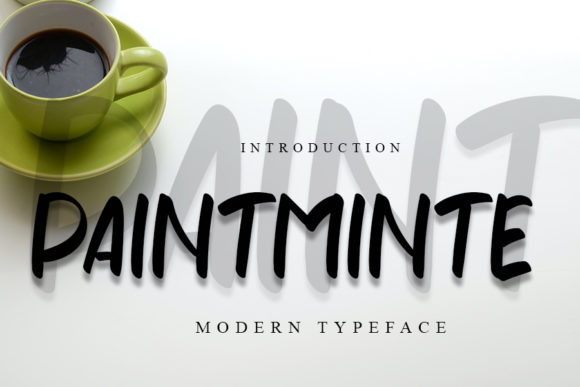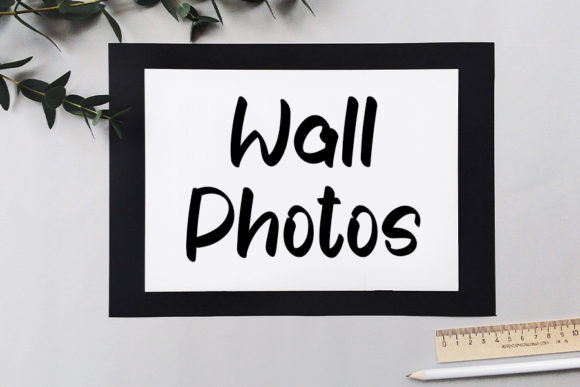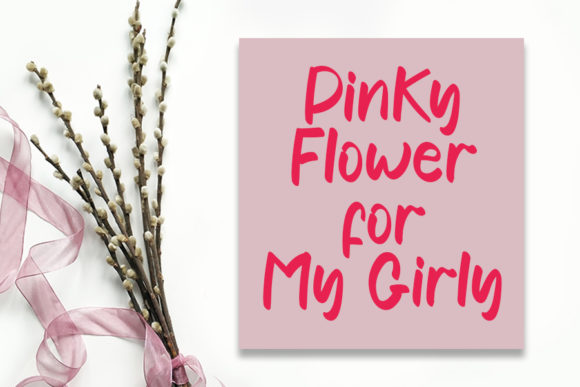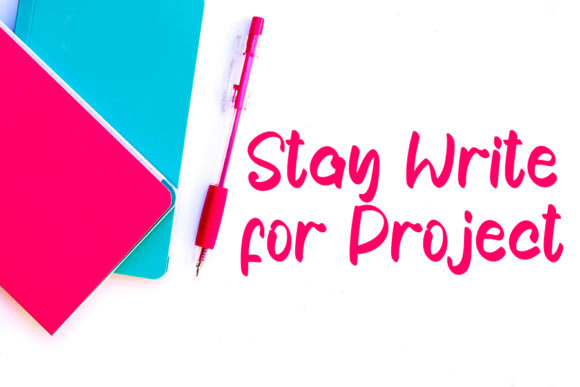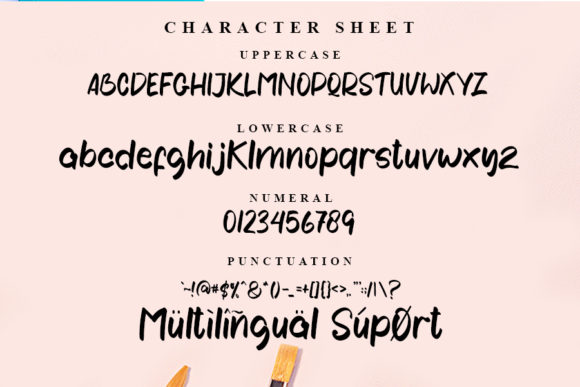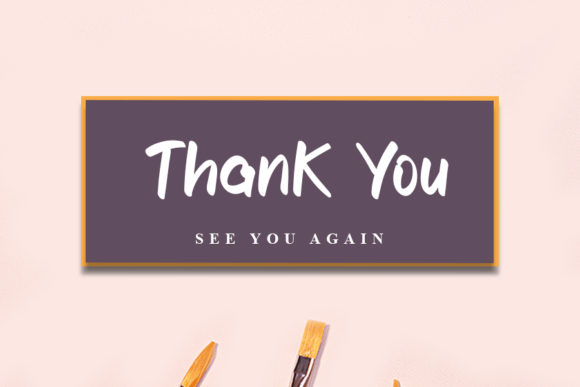
Paintminte Font
About Paintminte Font
Paintminte is a font that exudes sweetness and cleanliness in its paint brushed handwritten style. With its fresh and trendy characters, this font is a perfect choice for various design projects, including branding, product packaging, invitations, quotes, t-shirts, labels, posters, and logos.
The sweet and clean paint brushed handwritten style of Paintminte brings a sense of charm and modernity to your creations. Each letter carries the artistic and authentic touch of paintbrush strokes, making your work stand out with a touch of contemporary flair and originality.
With Paintminte as your creative tool, you have the freedom to explore various design ideas. Its versatility allows it to seamlessly adapt to a wide range of projects, making it a reliable font for any creative endeavor.
Embrace the sweet and clean vibe of Paintminte and witness how it transforms your designs into captivating works of art. Its trendy appearance adds a touch of authenticity, making your creations truly eye-catching and filled with a sense of fresh modernity.
Discover the joy of creating with Paintminte as your trusted companion. Let its paint brushed handwritten appearance be the key to unlocking your creativity and infusing your work with a sense of sweetness and originality.
Whether you’re working on branding, packaging, invitations, quotes, or any other project, Paintminte is the font that adds that extra touch of flair and appeal to your creations. Its sweet and clean style makes it the perfect choice for developing memorable and captivating designs.
Embrace the charm of Paintminte and let it be the font that sparks your inspiration and enhances your designs with its sweet and trendy paint brushed appearance. Experience the magic of Paintminte and witness how it elevates your creative projects, making them truly exceptional and filled with a sense of modern freshness and allure.